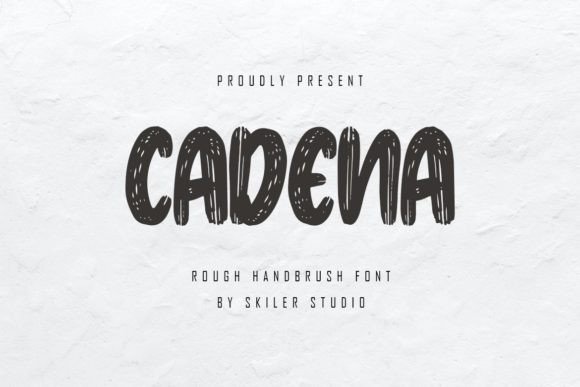
Feast your eyes upon Cadena - an enchanting brush display font that will transform your designs into captivating works of art!
Picture this: the flickering flames of a bonfire, casting an ethereal glow upon the surrounding rustic landscape. The air is filled with the sweet scent of wildflowers, and the gentle breeze carries whispers of romance and adventure. As you gaze upon this enchanting scene, allow Cadena to dance across your screen, capturing the very essence of this moment in each letterform.
Cadena's textured, brush-like strokes evoke a sense of authenticity and nostalgia, reminiscent of handwritten love letters and vintage advertisements. Each character is imbued with a unique charm, featuring subtle paint scratches and imperfections that add a touch of organic beauty to your creations.
Whether you're crafting invitations for a rustic wedding, designing posters for a film festival, or creating eye-catching social media graphics, Cadena possesses the versatility to elevate your designs to new heights. Its bold, expressive nature commands attention, making it perfect for headlines, titles, and branding elements that demand to be noticed.
Immerse yourself in a world of limitless creativity with Cadena. Let its organic brushstrokes inspire you to create designs that resonate with raw emotion and timeless appeal. From ethereal wedding invitations to captivating movie posters, Cadena will be your faithful companion, transforming your artistic visions into tangible pieces of beauty.